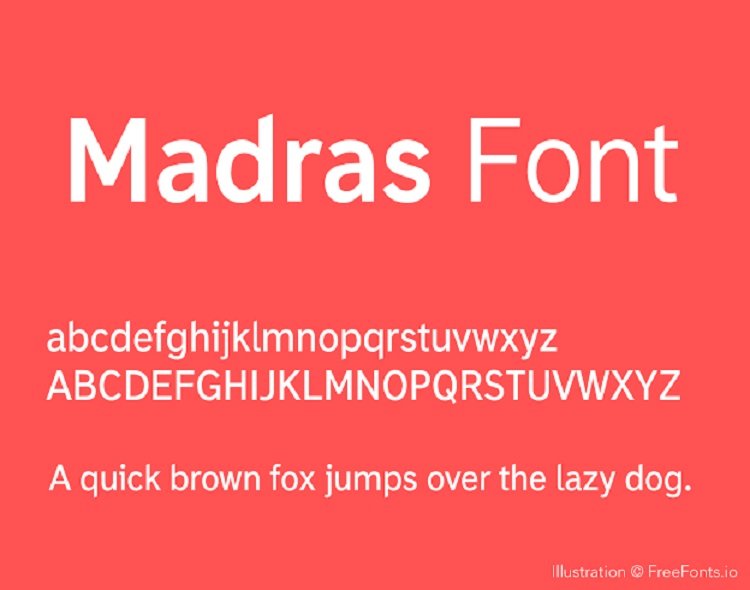
Madras Font
Madras is a sans-serif type family consisting of 7 weights plus matching italics, designed by Thomas Gillett (Australia).
The design and production spanned over 2 years beginning with Thomas’s Andromeda typeface and drawing inspiration from street and roadside signage. The typeface has been designed to be space-efficient, legible and ultimately elegant.
Madras features the simplicity of typefaces such as Helvetica and is combined with modern defining features of typefaces such as Interstate to create a hybrid typeface that can be applied to any situation.